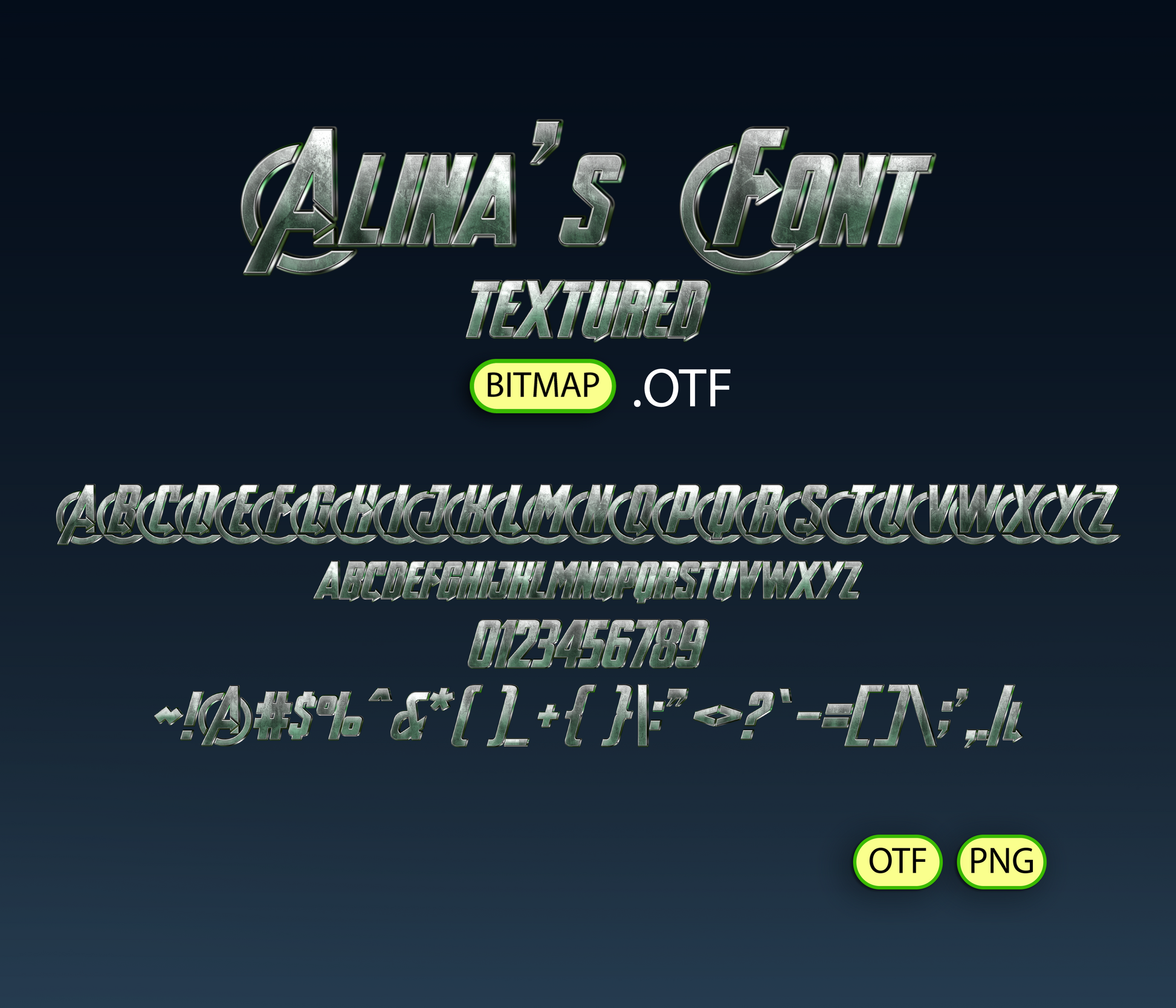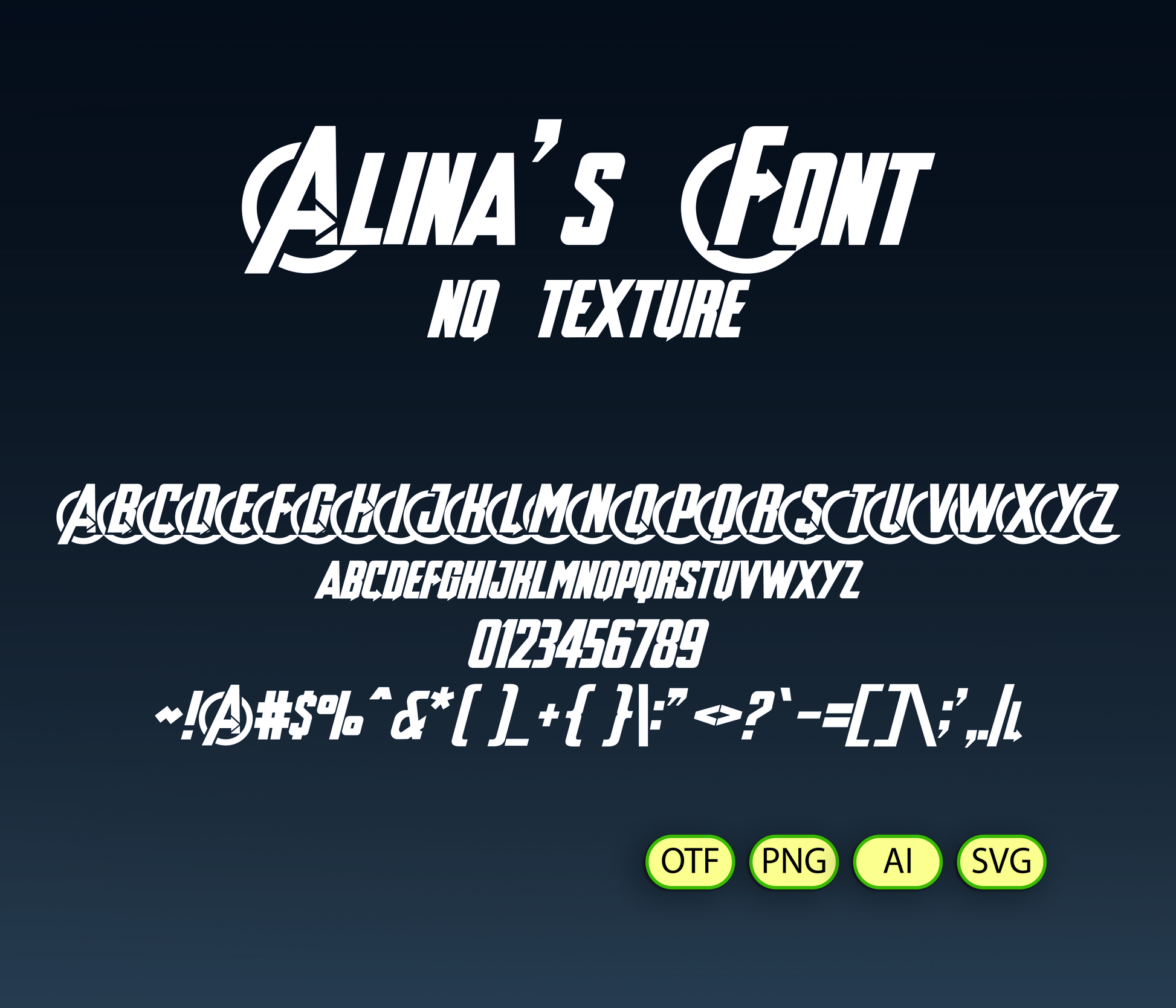
HeroCraft Font Textured
HeroCraft: Bold Textured Bitmap Font for Fans of Epic Battles Avengers Doomsday Font
Hey there, superhero fans and crafters! Get your hands on Alina's HeroCraft, our textured bitmap font that's all about those legendary champions we can't get enough of. Want to make your crafts stand out? This font is perfect for you. Got a Cricut? You're in luck! HeroCraft works like a charm for all sorts of projects.
Whether you're putting together some awesome cake toppers for a superhero birthday party or making decals to decorate your space, this font makes it easy to add that special touch. Planning a get-together? Use HeroCraft for your birthday invites and get everyone buzzing about your epic party. Your invitations will look like they came straight out of a cosmic saga.
Don't miss out on this must-have for any fan or crafter. Get your HeroCraft Bitmap Font now and take your projects to the next level! Perfect for designs inspired by epic battles, heroic adventures, or any project that needs a touch of superhero flair and fully compatible with Canva.